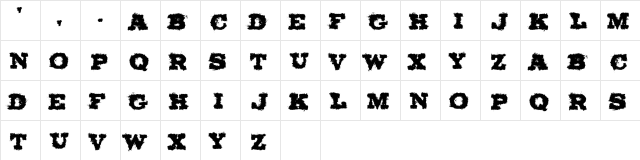
Ol' Cowboy ExtraBold
| Foundry | Kevin Christopher |
| Designer | Kevin Christopher |
Design Context for Ol' Cowboy Typeface
Ol' Cowboy taps into classic Western woodtype traditions — bold, characterful, and impossible to ignore. Its bold stroke weight gives it real presence on the page.
Perfect for barbecue restaurants, country music branding, vintage poster design, and rustic packaging.
Font Pairing: Combine Ol' Cowboy with a simple slab or neutral sans — period-accurate companions reinforce the vintage feel without competing for attention.
Pro Tip: Pair Ol' Cowboy with aged textures or distressed backgrounds to amplify its vintage personality.